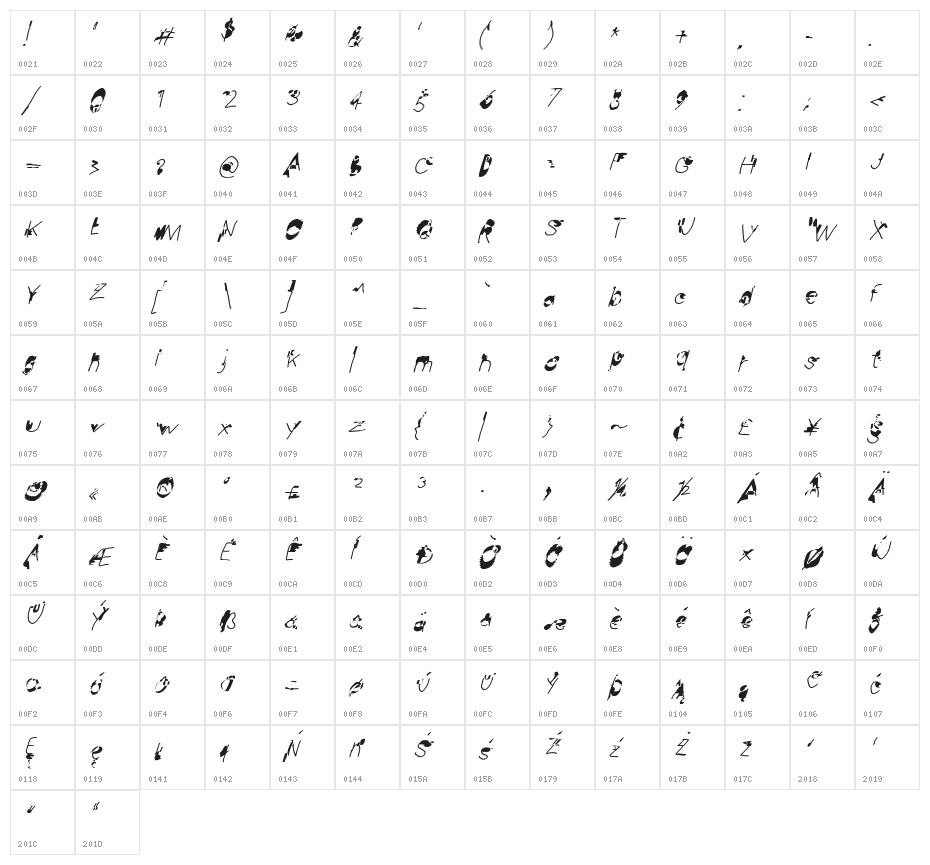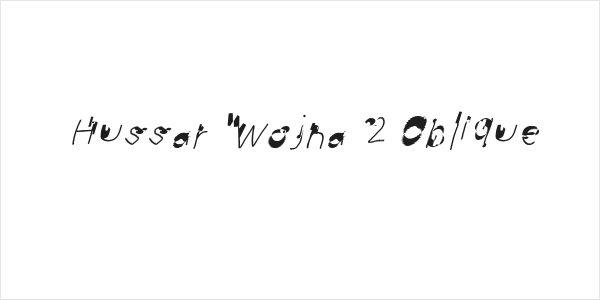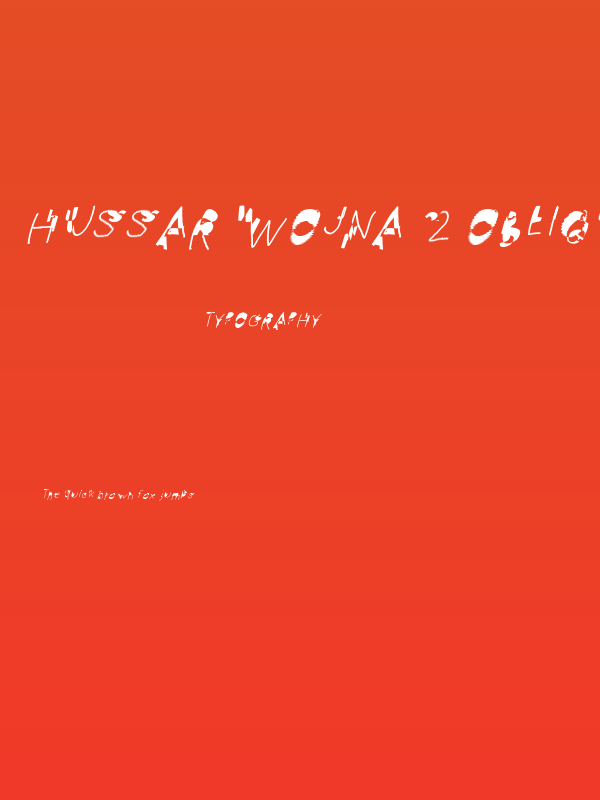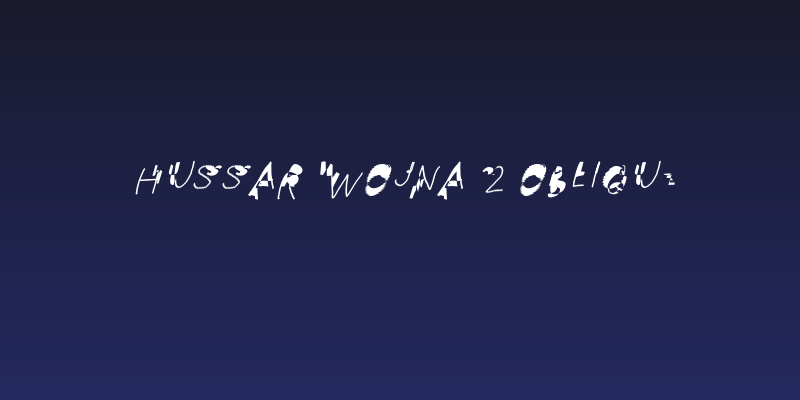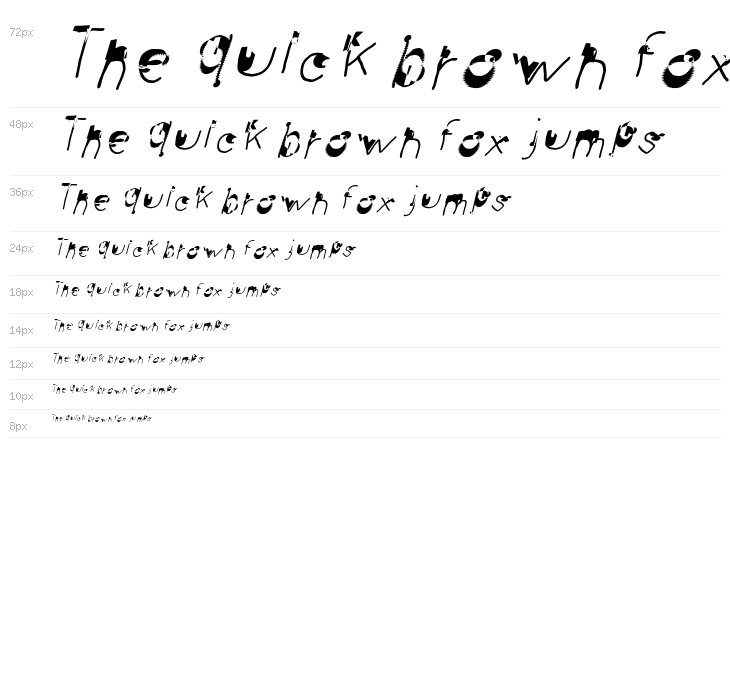
Hussar Wojna 2 Oblique Font
Hussar Wojna 2 Oblique Description
This font features a dynamic and energetic style with a distinct oblique slant, giving it a sense of motion and urgency. The characters are uniquely fragmented, creating a textured and distressed appearance that adds a layer of complexity and visual interest. The uppercase and lowercase letters maintain a consistent slant, while the numbers and special characters follow the same stylistic approach. This font's design is bold and unconventional, making it stand out in any application. The fragmented strokes and varying thicknesses contribute to its high contrast, enhancing its dramatic effect.
| Proposed Projects | Ideal for edgy branding, music album covers, posters, and creative digital art projects. |